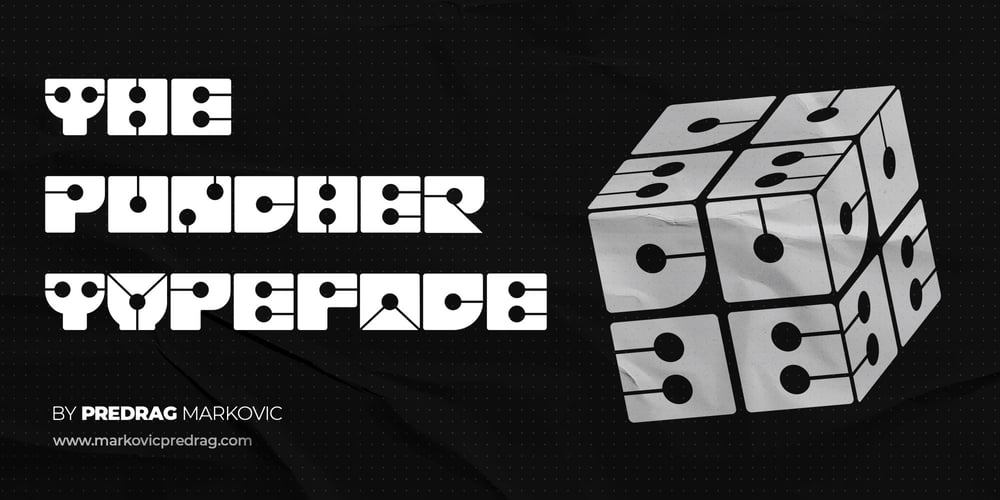
The PUNCHER Font Family was designed by Predrag Markovic and published by PAC Font Corner. The PUNCHER contains 1 styles and family package options. ThePuncher typeface is made exactly for the book, poster, flyer or any type of titles, and for customers who wants to have bold and eye-catching final product. It can be used as a single letter for a logo or for numbering of anything you want. It is not made for long sentences. ThePuncher typeface purpose is to make big bang from your short and specific messages you want to share with the world.